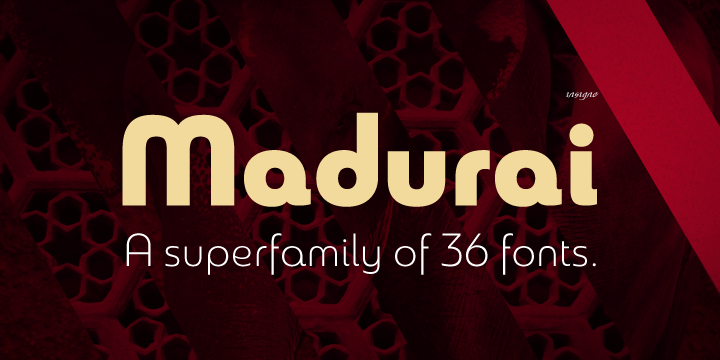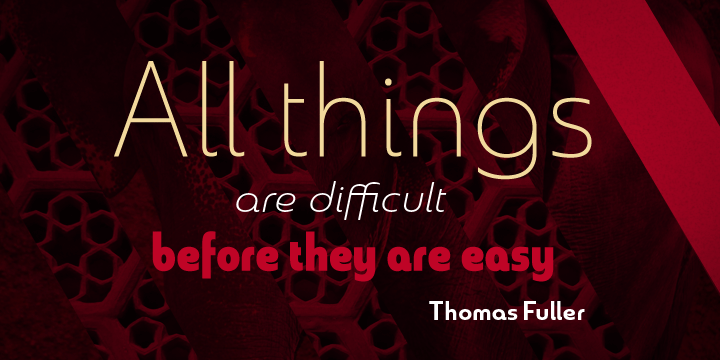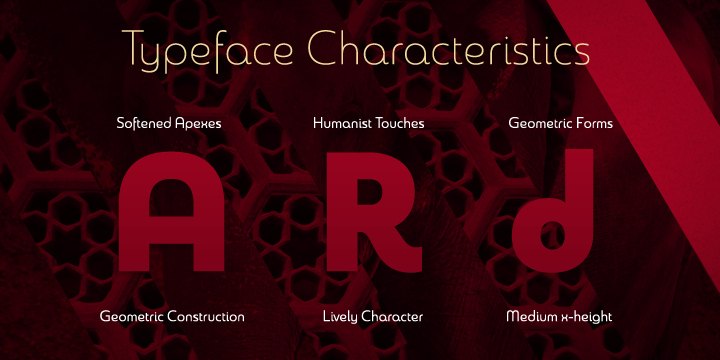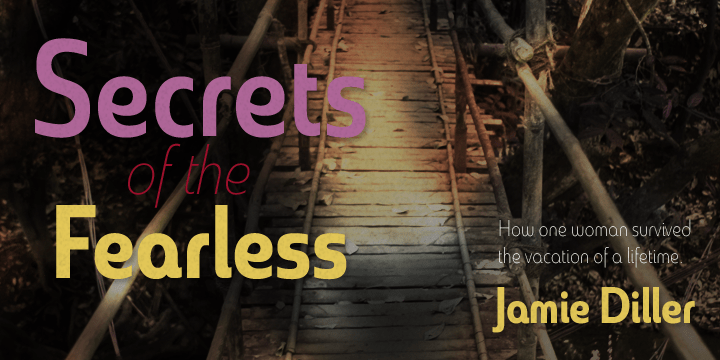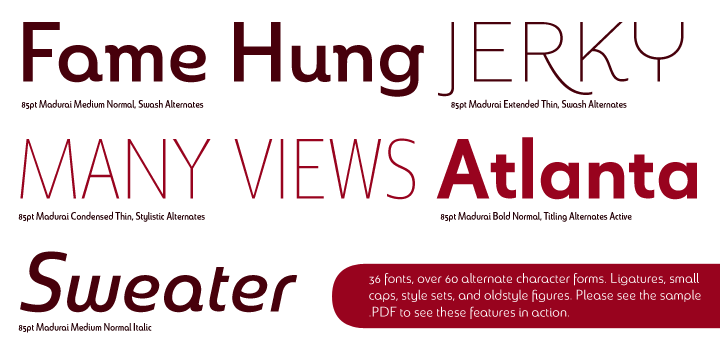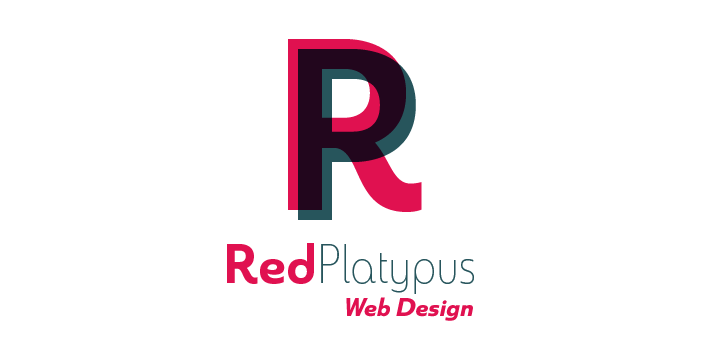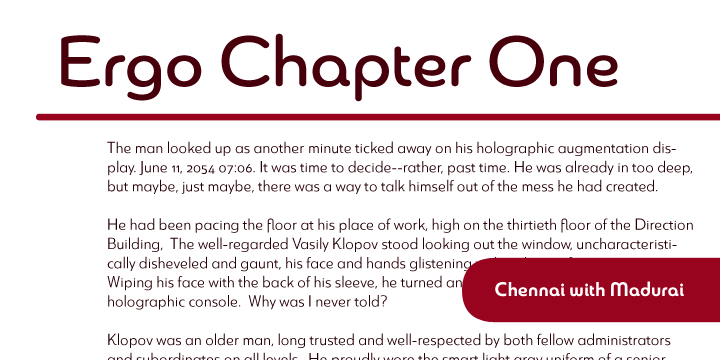
Madurai
Font Family by Insigne
The rounded forms found in Chennai have proven to be one of Insigne's more popular designs for web-based company logotypes. Now, insigne's new superfamily Madurai takes its popular predecessor to a new level, offering a wide range of complementary fonts. Madurai removes Chennai's rounded stems and then adjusts the character width to account for its reduction in geometry, resulting in a balanced sans-serif face with humanist touches that works well for extended text.
The Madurai family has a full range of six weights from thin to black and includes Condensed and extended options for a total of 36 fonts. All members of the Madurai series include a wide variety of OpenType alternates. Madurai is equipped for complex professional typography, including alternates, small caps and plenty of alts, including 'normalized' capitals and lowercase letters that include stems. The face also has a number of numeral sets, including fractions, old-style and lining figures with superiors and inferiors. OpenType-capable applications such as Quark or the Adobe suite can take full advantage of automatically replacing ligatures and alternates. You can find these features demonstrated in the .pdf brochure.
Madurai also includes the glyphs to support a wide range of languages, including Central, Eastern and Western European languages. In all, Madurai supports over 40 languages that use the extended Latin script, making the new addition a great choice for multi-lingual publications and packaging.